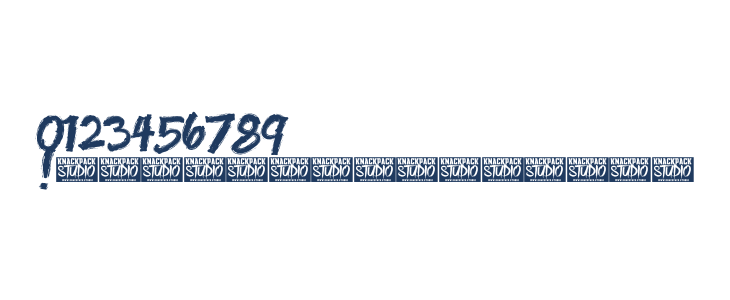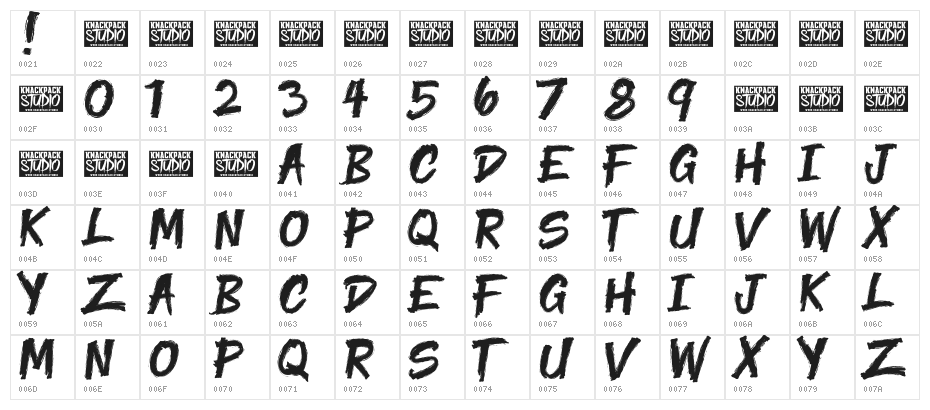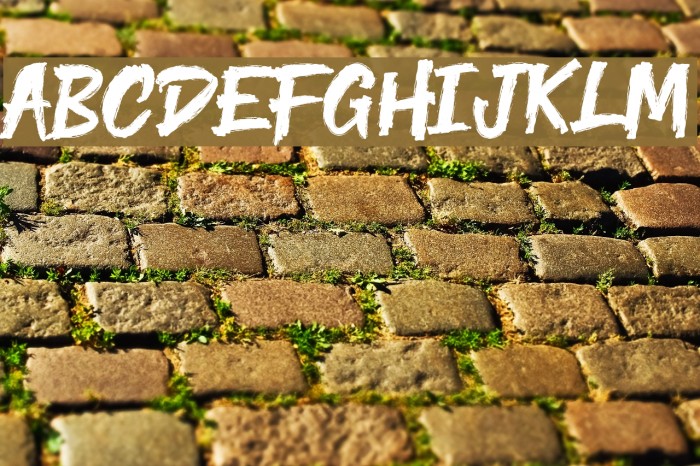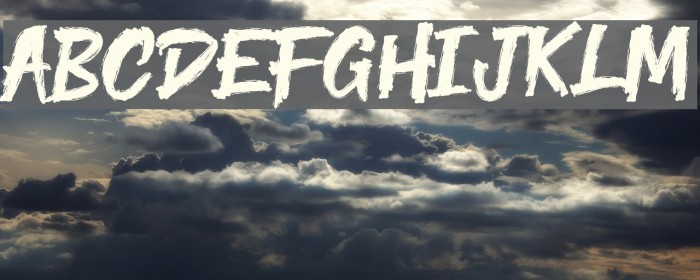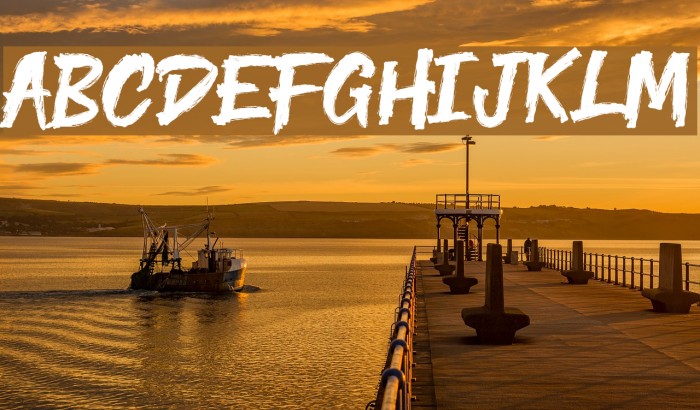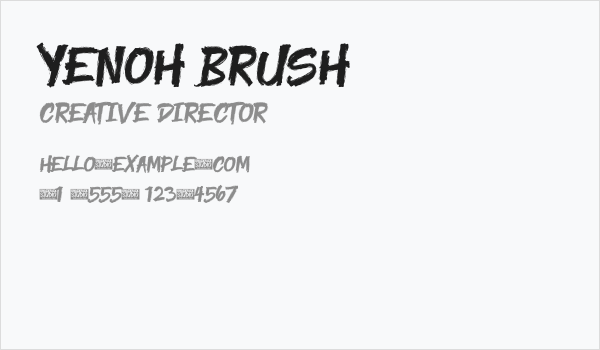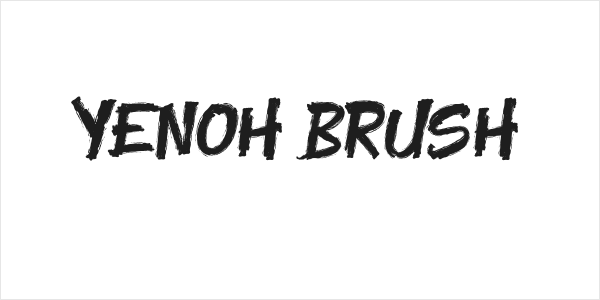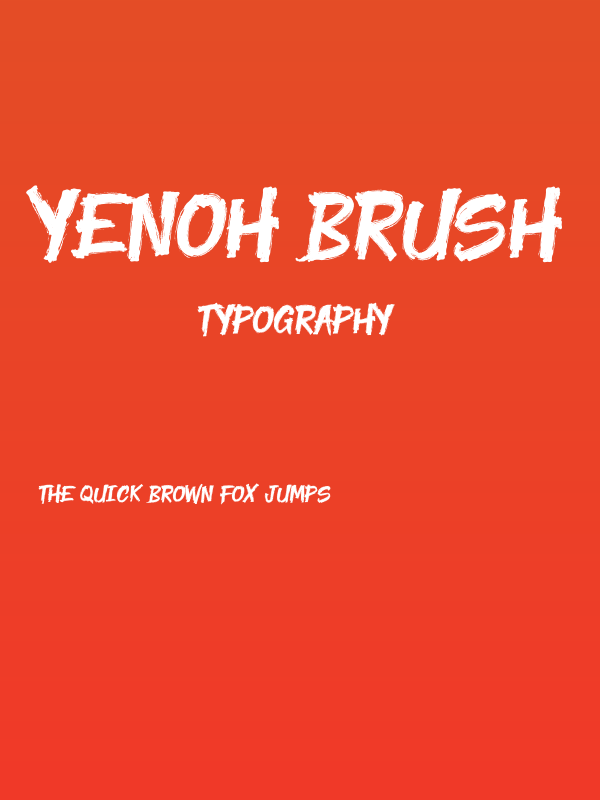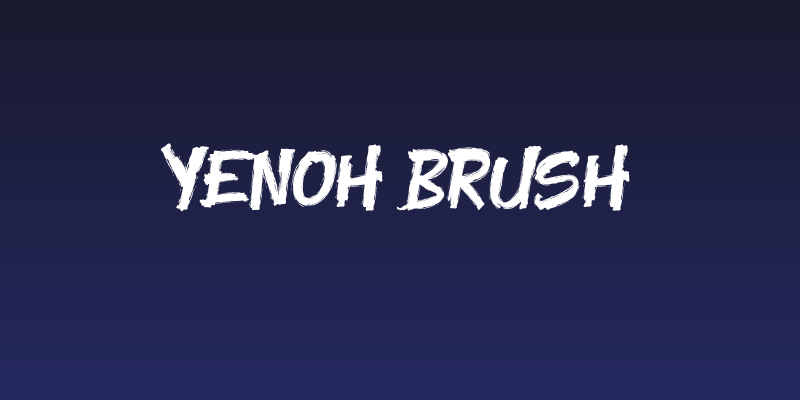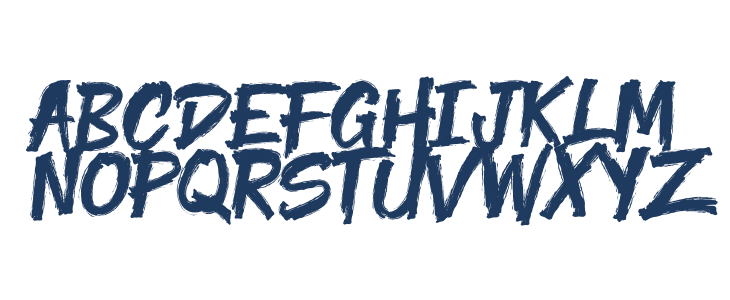
Yenoh Brush Font
Yenoh Brush Description
This dynamic and expressive font features bold, brush-like strokes that convey a sense of energy and movement. The characters are crafted with a hand-painted appearance, giving them a raw and artistic feel. Each letter is unique, with varying stroke thicknesses that add to the font's lively and spontaneous character. The uppercase and lowercase letters maintain a consistent style, while the numbers and special characters integrate seamlessly into the overall design. This font is perfect for projects that require a personal touch or a creative flair.
| Proposed Projects | Ideal for branding, posters, album covers, and creative advertising campaigns. |